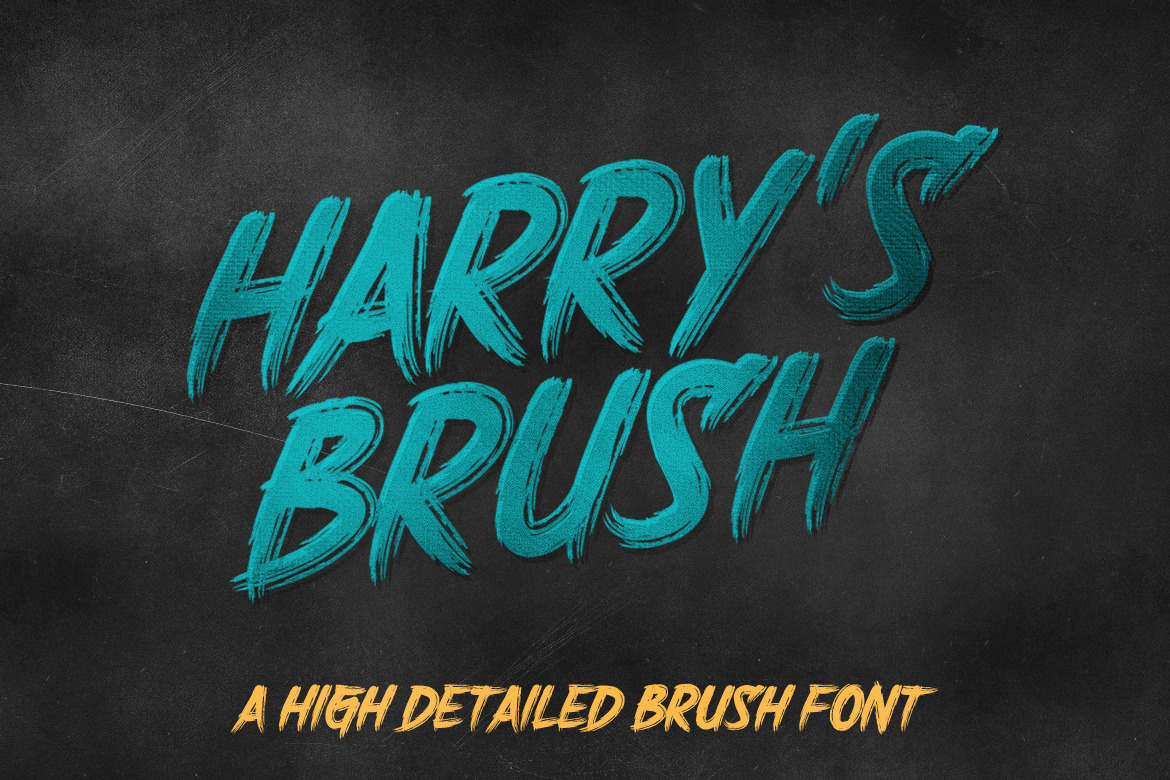
Harry's Brush - Brush Textured Font
Harry's Brush is a brush font that's comes with 216 Glyphs, Accent & have 2 format font that's Open Type & True Type.